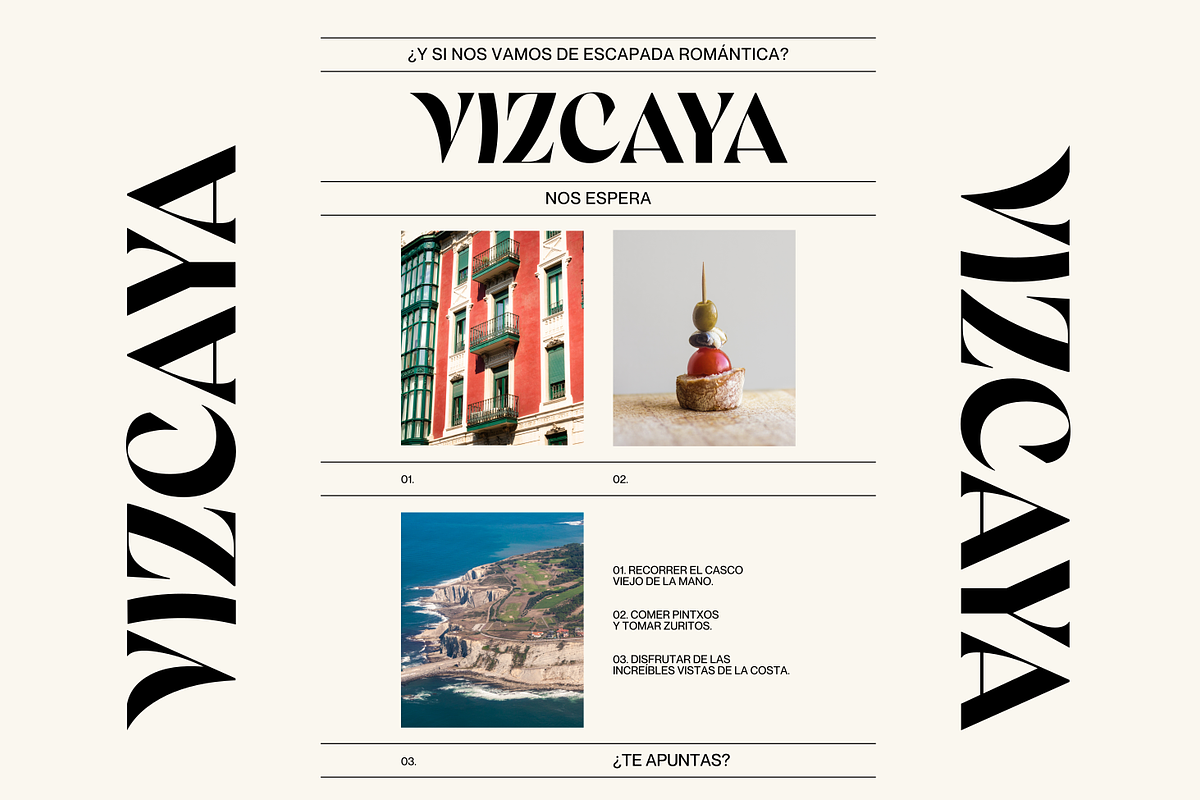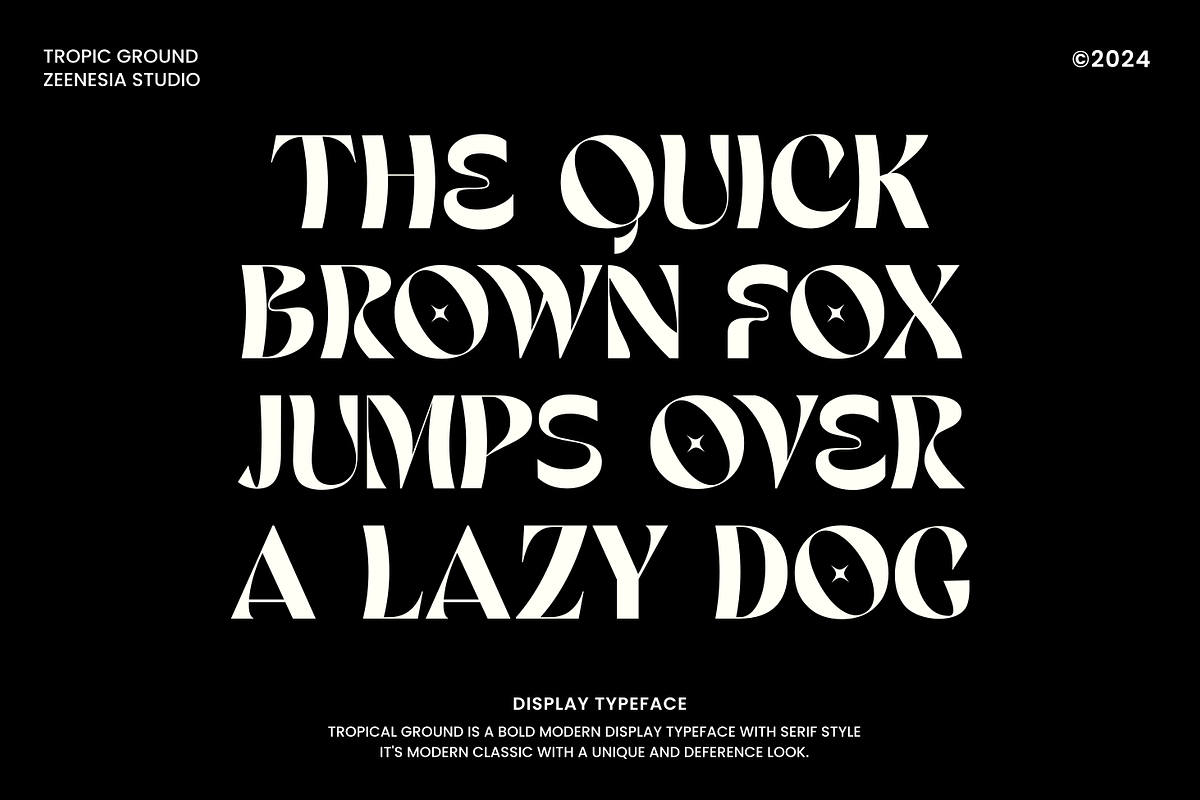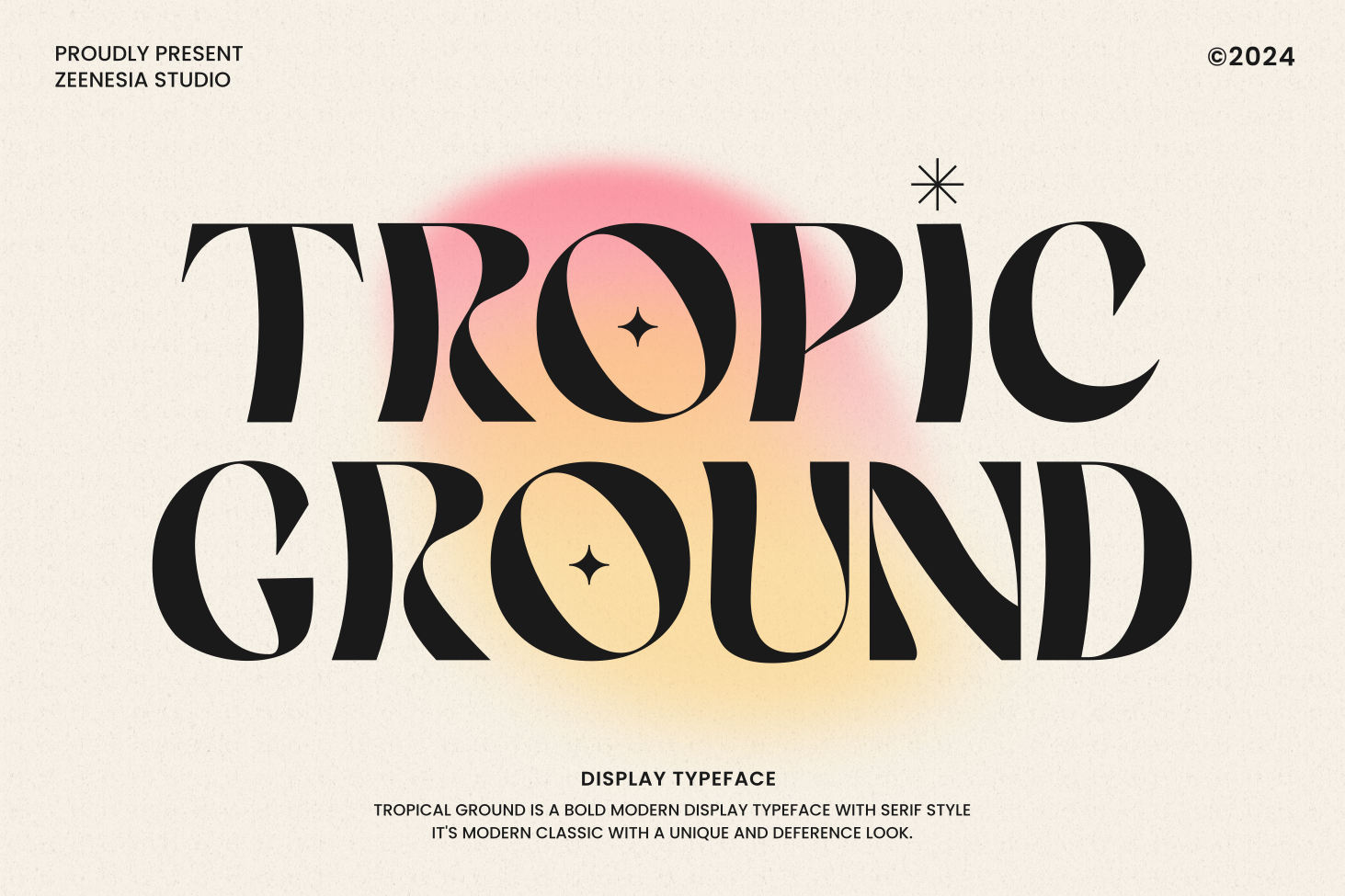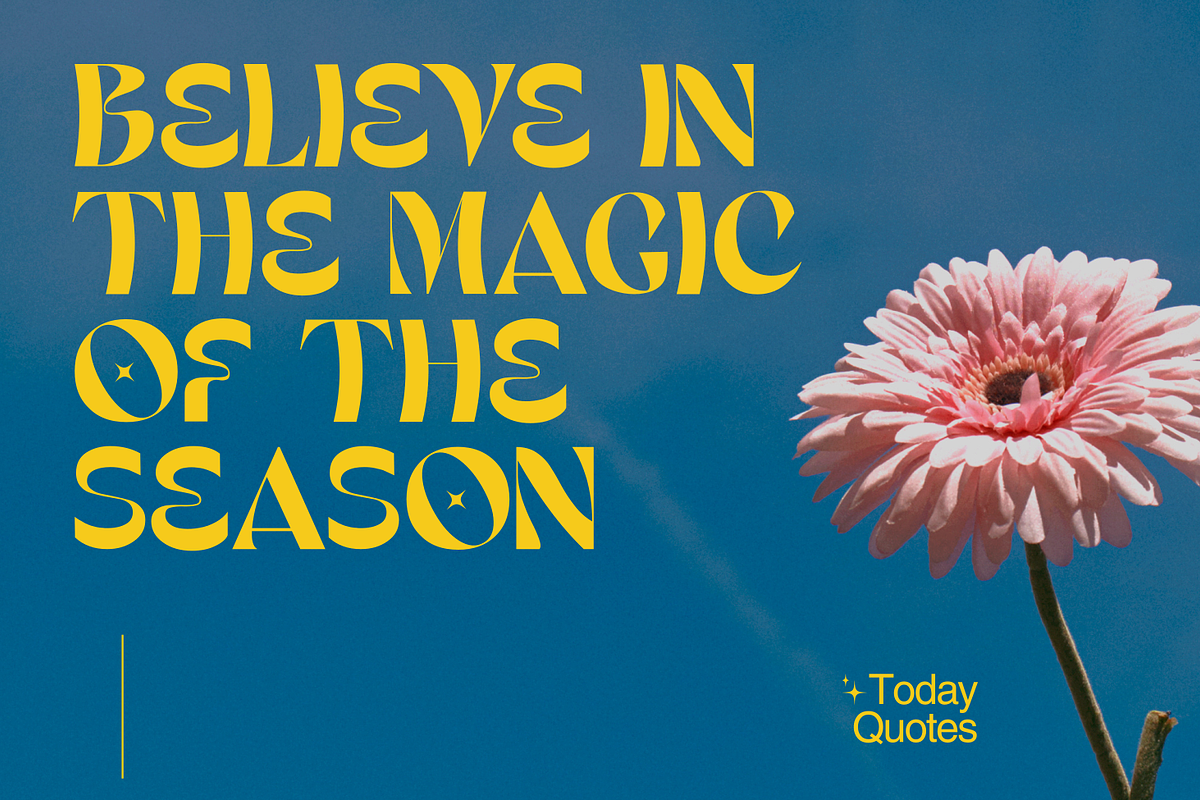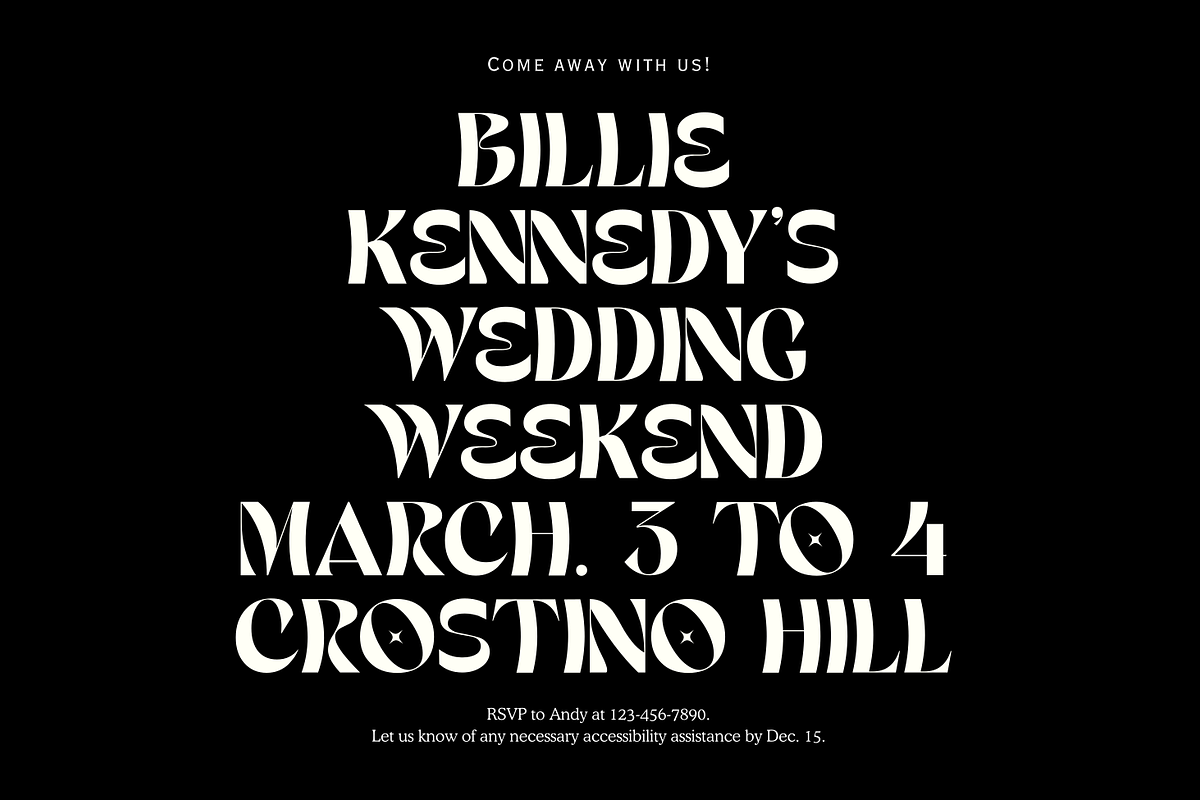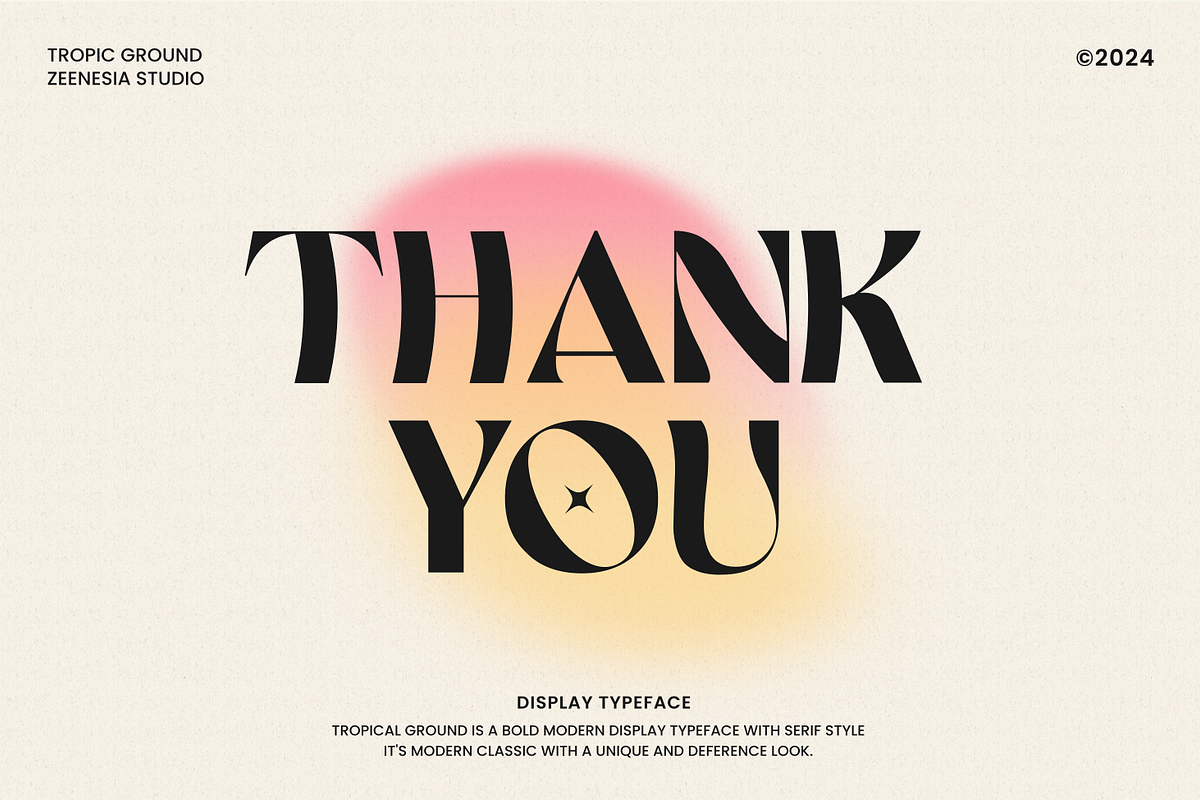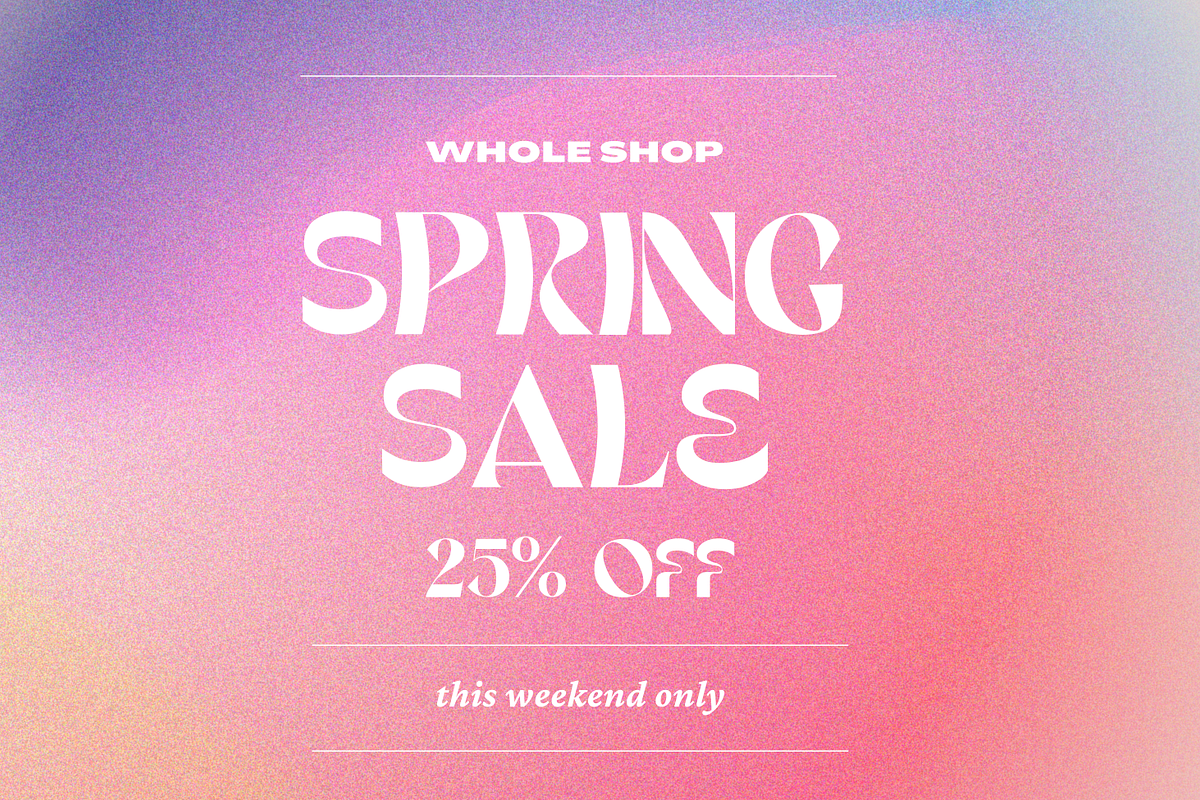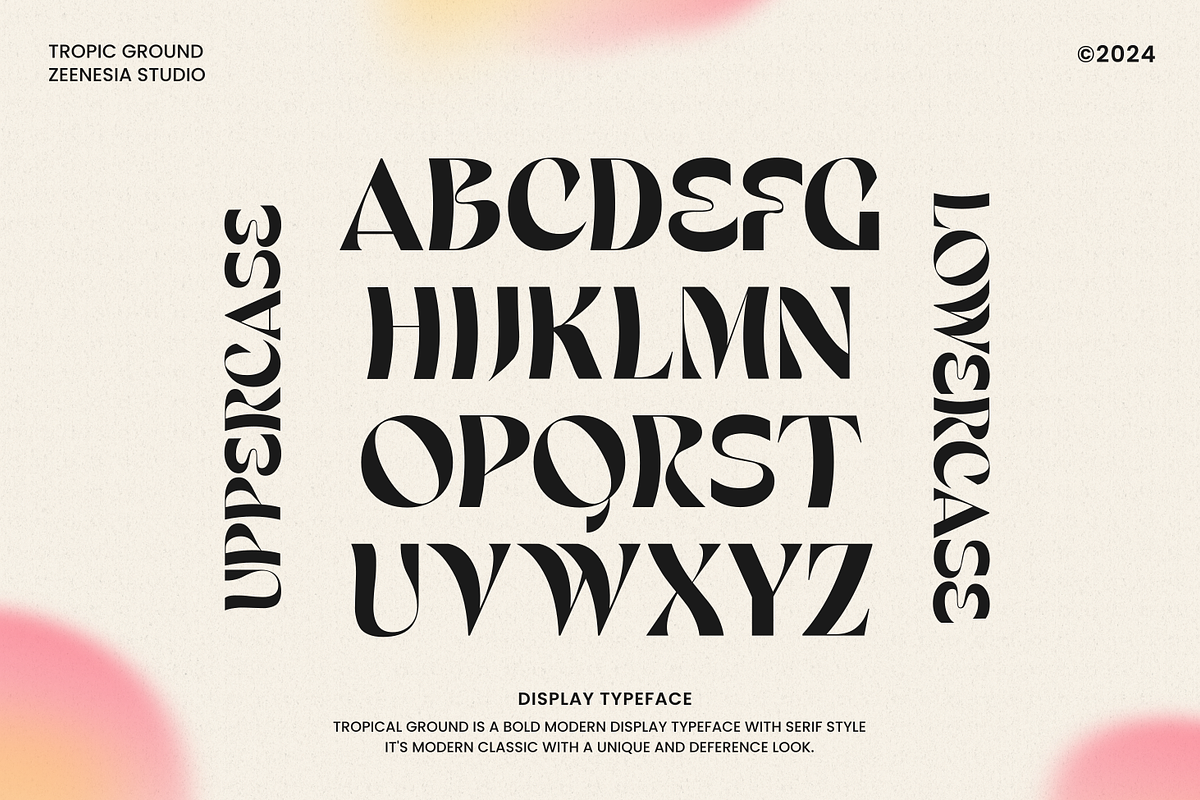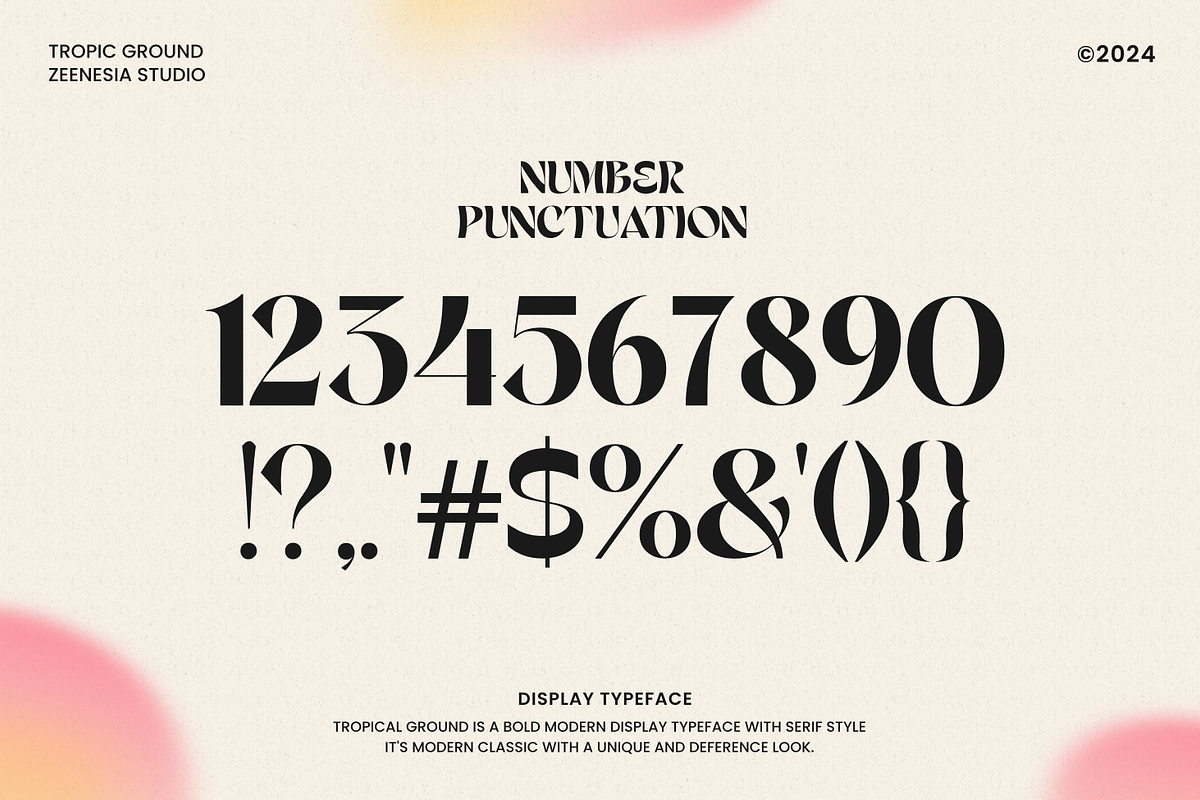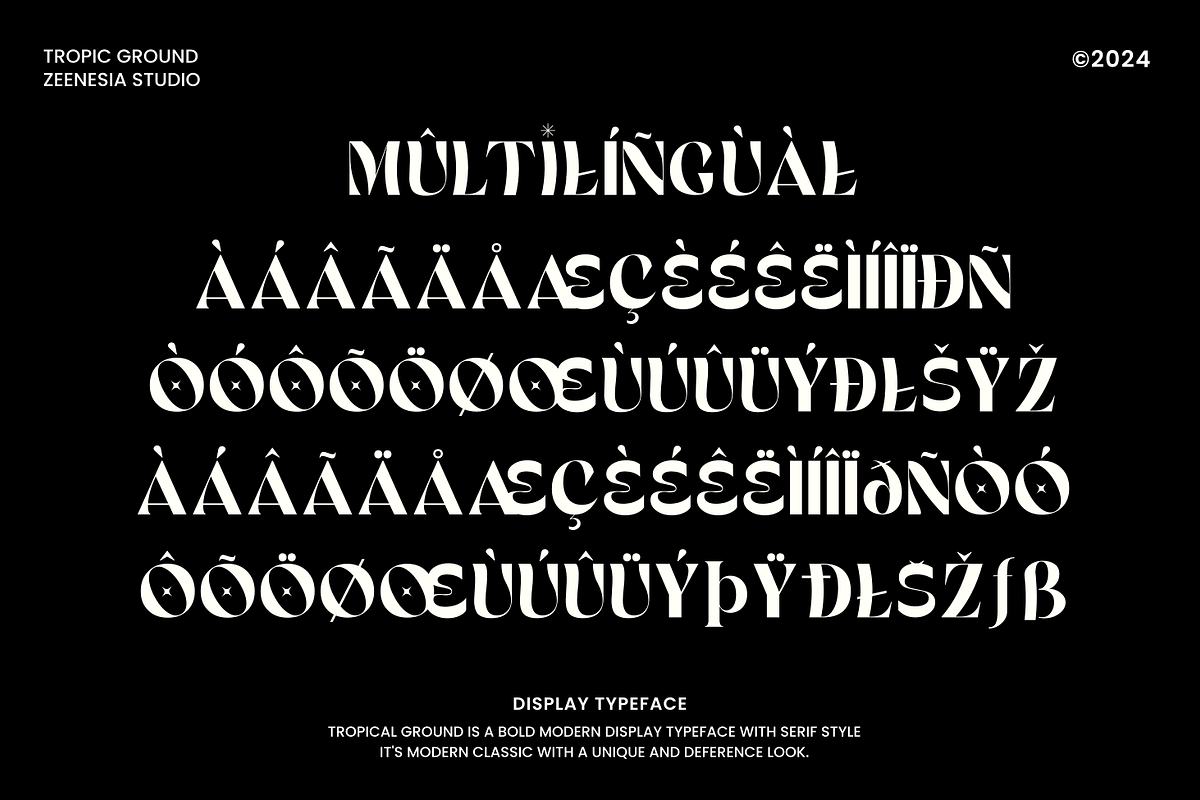
Tropic Ground Font
Introducing Tropic Ground. Tropic Ground is a unique display font with serif style. It's modern and classic font with a unique and deference look . Perfect if you need a dose of fun in your project. Perfect for editorial projects, Logo design, web font, clothing branding, product packaging, magazine headers, or simply as a stylish text overlay to any background image.
- Symbols and Number